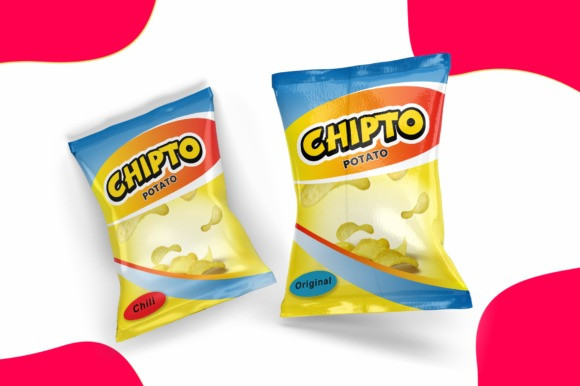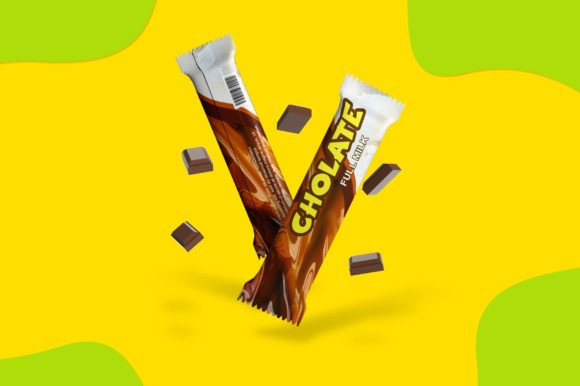
Sonic Speed Font
Sonic Speed Font, a captivating display font infused with a cartoon style, harking back to the glory days of comics. Its alluring thick strokes make it a dream for children’s books, while also lending an explosive edge to racers, flash games, and speed-themed designs. Sonic Speed is your go-to for screen-printed t-shirts, sizzling with an authentic, clean, and trendy look that amplifies the appeal of your brand design. This multilingual font caters to Eastern European accents, providing a unique and intriguing aesthetic for any project. “SonicSpeed” skillfully straddles the worlds of magazines, greeting cards, and quotable designs – not forgetting its potential for branding, apparel, product packaging, and invitations. It’s perfect for trendy posters and logotypes, while also being a seasonal font that sets the tone across various themes. “Sonic Speed” – your ideal chunky font for catchy titles, effortlessly draws attention in advertising, while impressively handling an extensive width of applications. More than just a wide font, it stands as a dynamic and powerful embodiment of design energy.